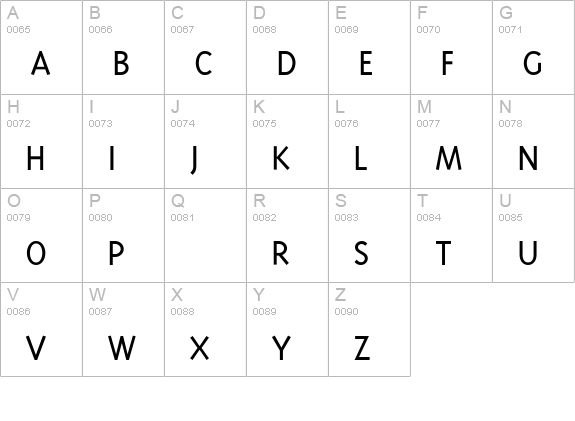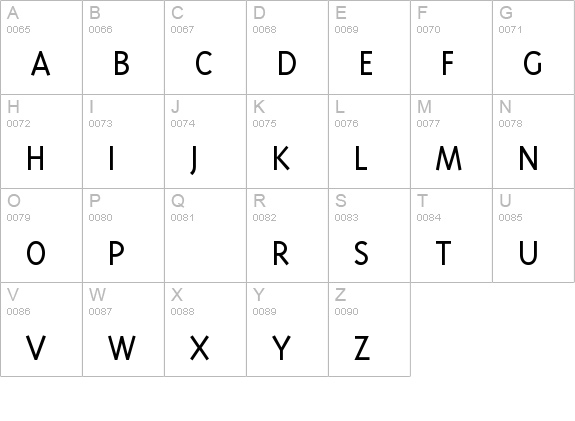
Triplex-Light is a refined, elegant variant in the Triplex typeface family \xE2\x80\x94 well suited to elegant body text, refined sub-headings, and luxury branding.
Triplex-Light is a captivating font that effortlessly combines elegance and simplicity. With its clean lines and delicate curves, this font is perfect for adding a touch of sophistication to any design project. Whether you are working on a logo, website, or print material, Triplex-Light will elevate your work to new heights. Designed with versatility in mind, Triplex-Light can be used in a variety of contexts, from formal invitations to modern branding. Its timeless appeal ensures that it will never go out of style, making it a valuable addition to any designer's toolkit. One of the best features of Triplex-Light is that it is completely free to download at FontsMarket.com. This means that you can add this stunning font to your collection at no cost. With its high-quality design and extensive character set, Triplex-Light offers incredible value for designers looking to enhance their projects without breaking the bank. In addition to its aesthetic appeal, Triplex-Light also boasts excellent legibility, ensuring that your message is clearly communicated to your audience. Its carefully crafted letterforms guarantee optimal readability, making it an excellent choice for body text as well as headlines. Whether you are a professional designer or a beginner, Triplex-Light offers a user-friendly experience. Its easy-to-read glyphs and well-balanced proportions make it a breeze to work with, even for those who are new to typography. So why wait? Enhance your design projects with the timeless elegance of Triplex-Light. Download it for free today at FontsMarket.com and unlock a world of creative possibilities. With Triplex-Light, your designs will stand out and leave a lasting impression on your audience.